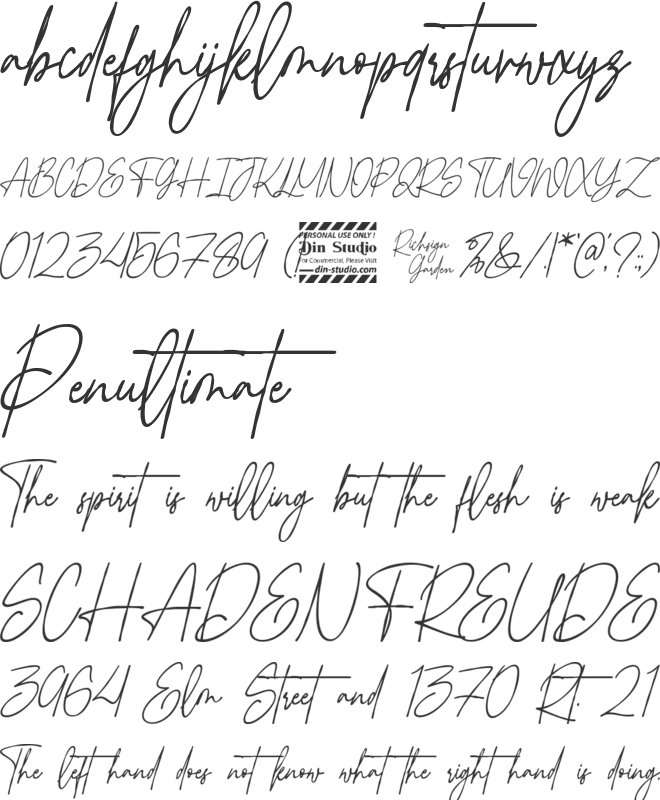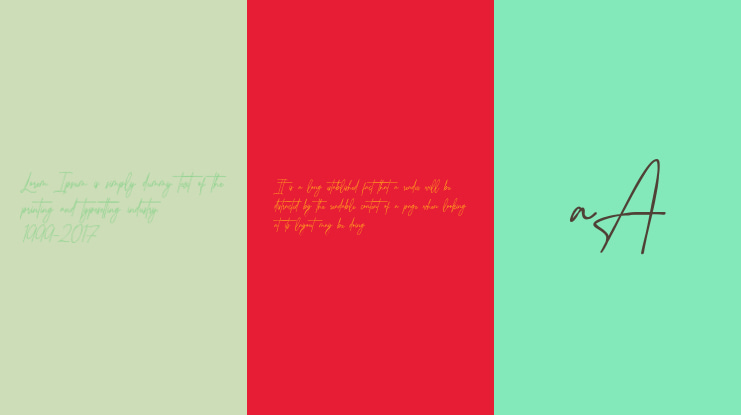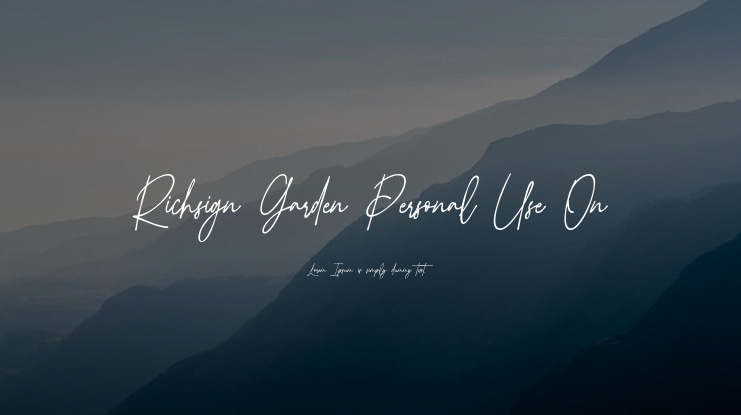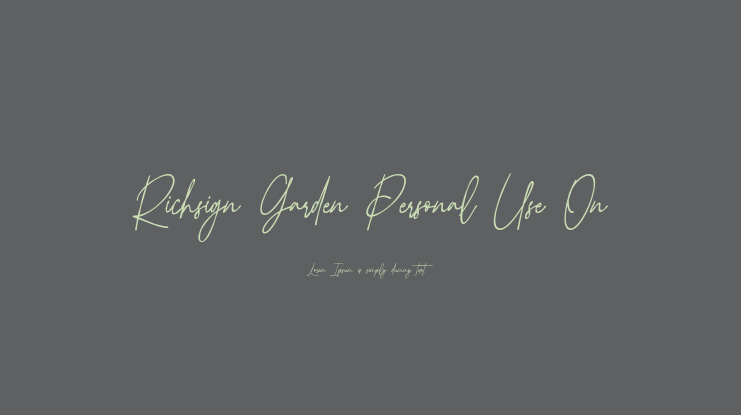
Richsign Style is an elegant script font crafted with a refined signature style. Designed with beautifully connected letters and subtle, low contrast, this font adds a touch of sophistication and smooth flow to any project. Brings effortless grace and a polished look to your designs with Richsign Style.
Features include:
• Ligatures
• Stylistic Sets
• Multilingual Supports
• PUA Encoded
• Numerals and Punctuations